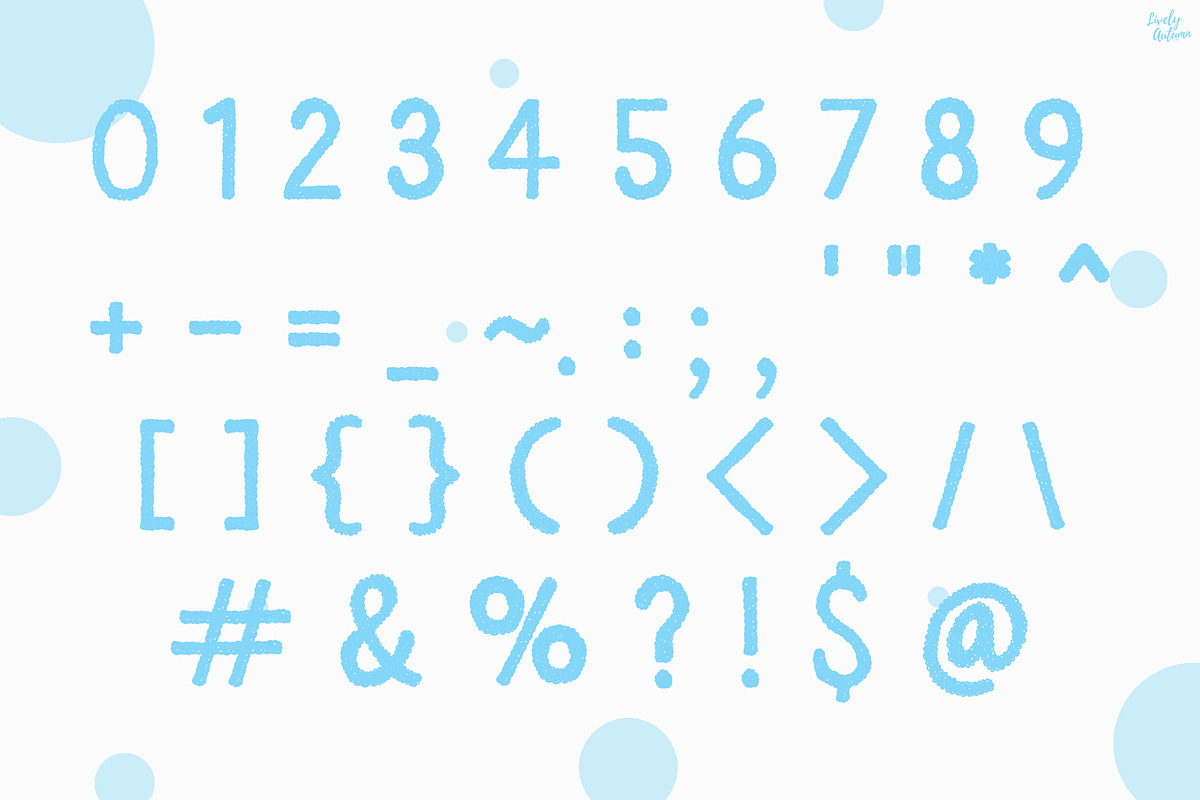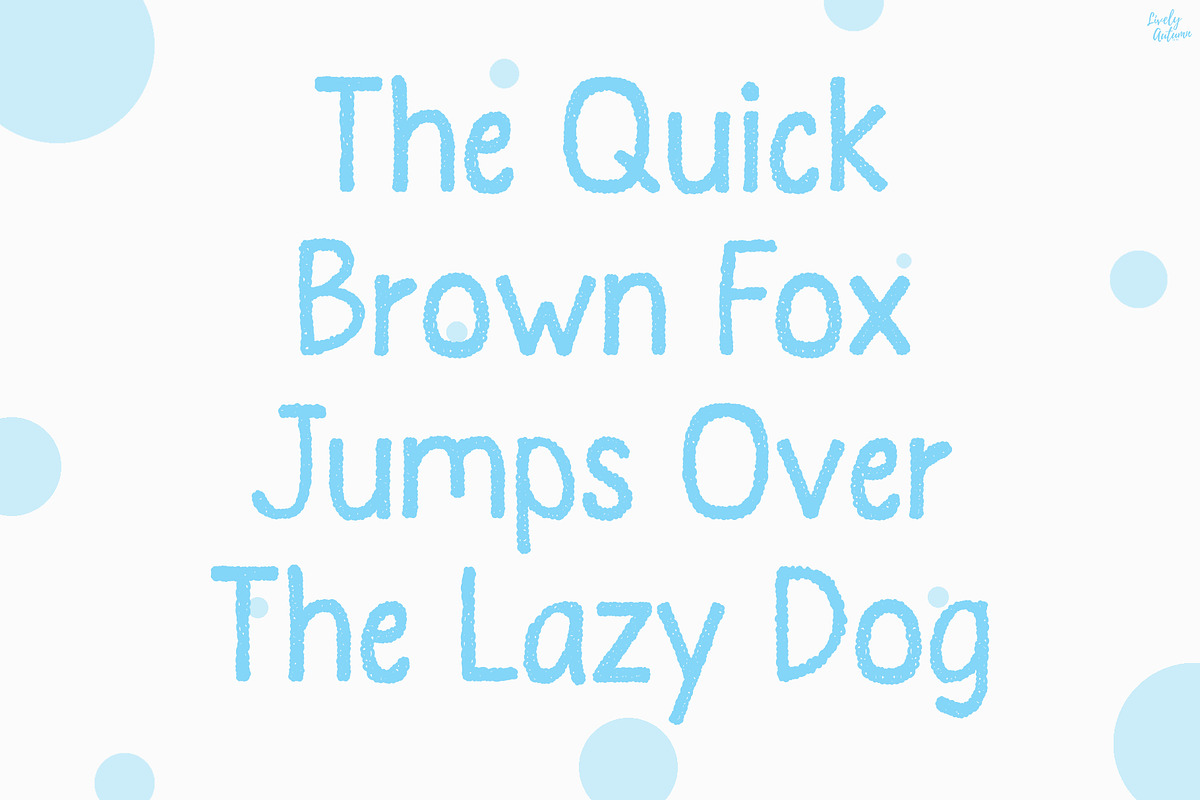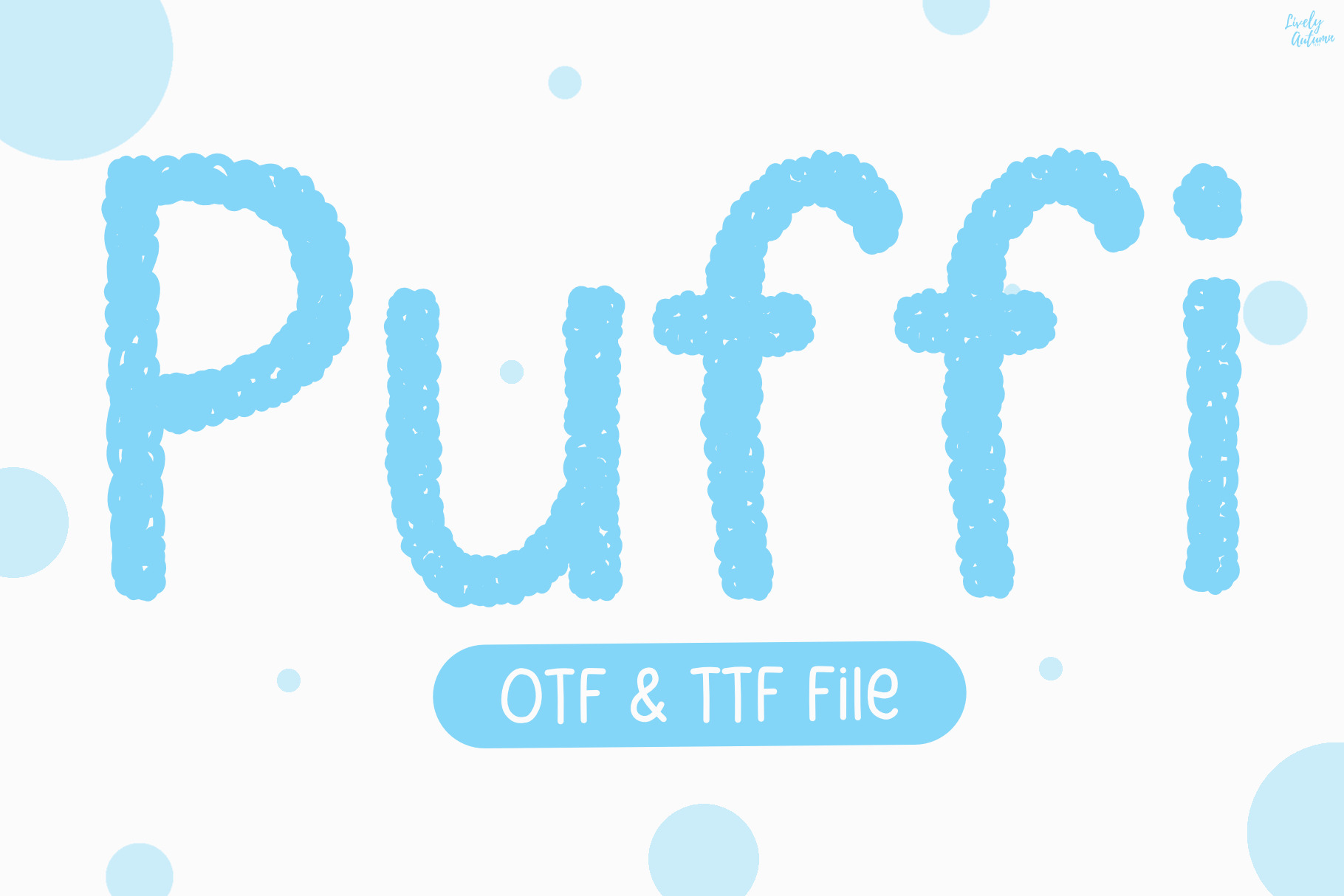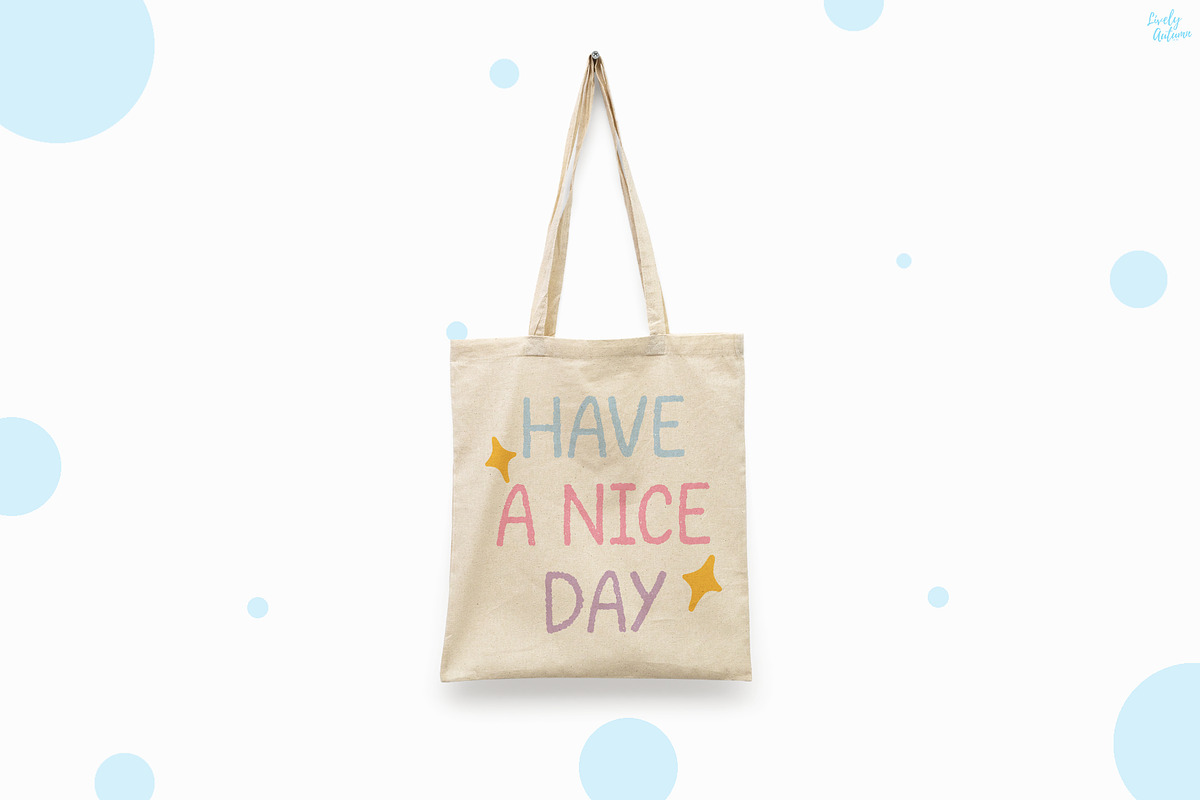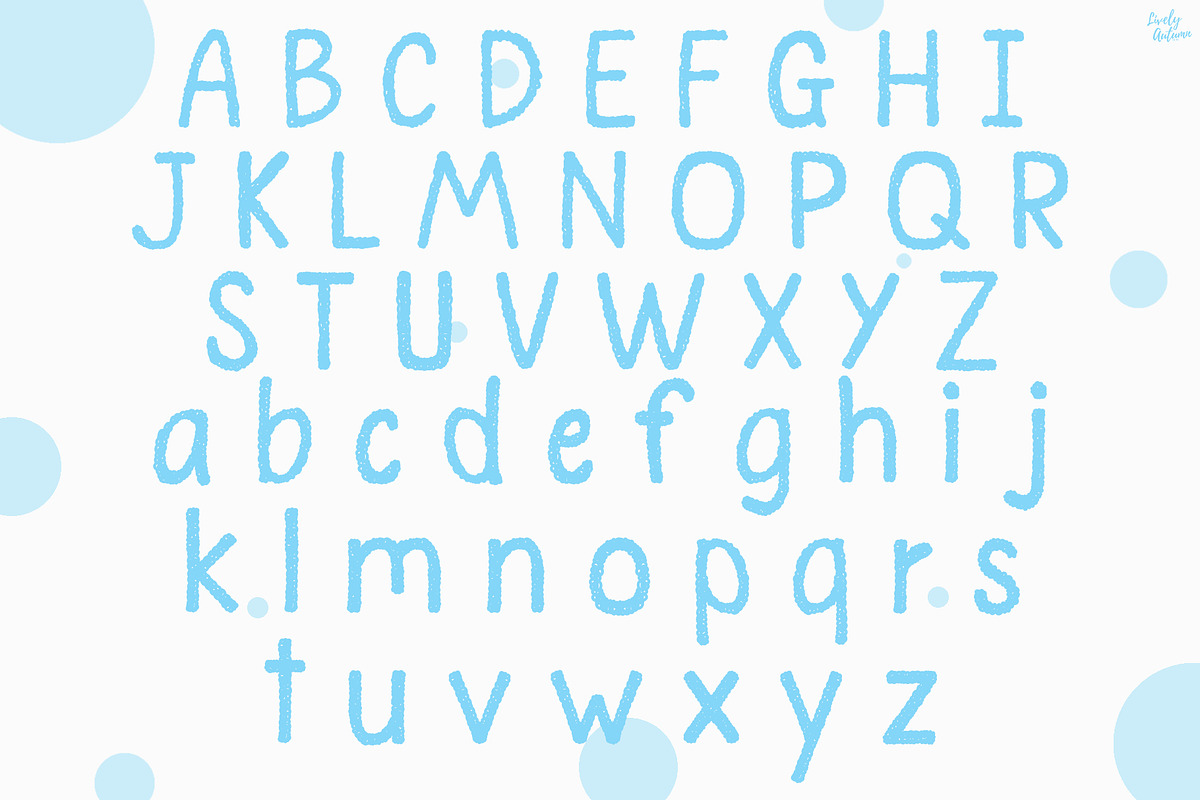
Puffi | Handwriting Font
Puffi is a handwritten sans serif font with a curves and some grain on each letters. Perfect for your personal projects and various projects. From invitations to posters, social media graphics, journals, stickers and much more.